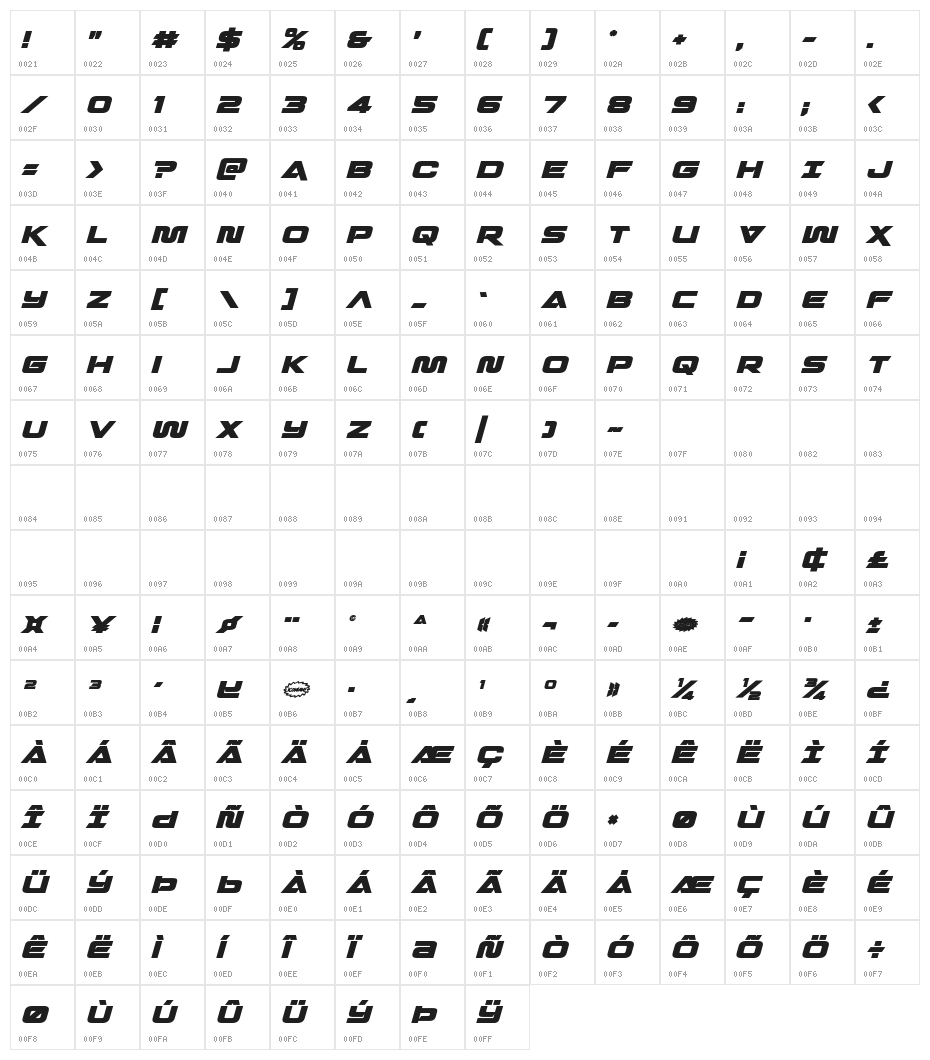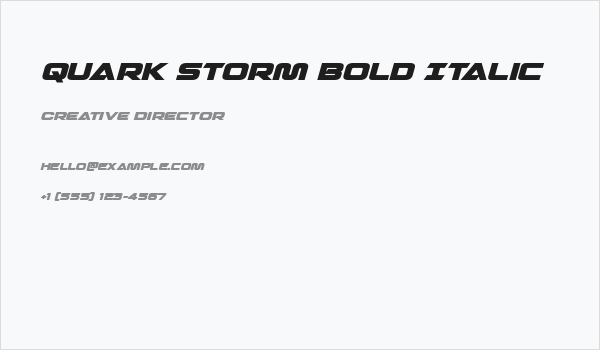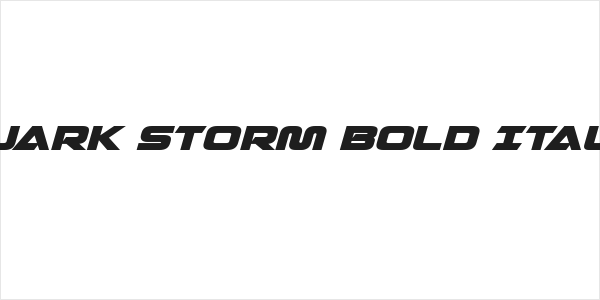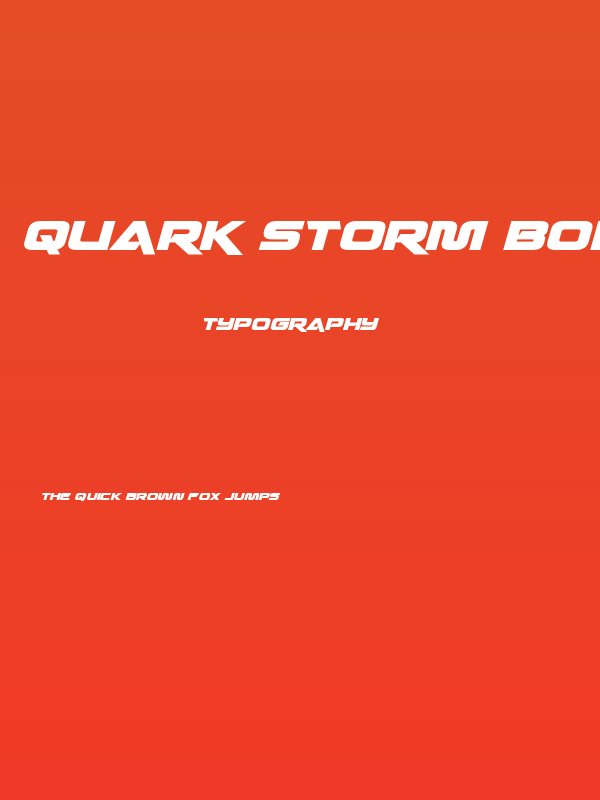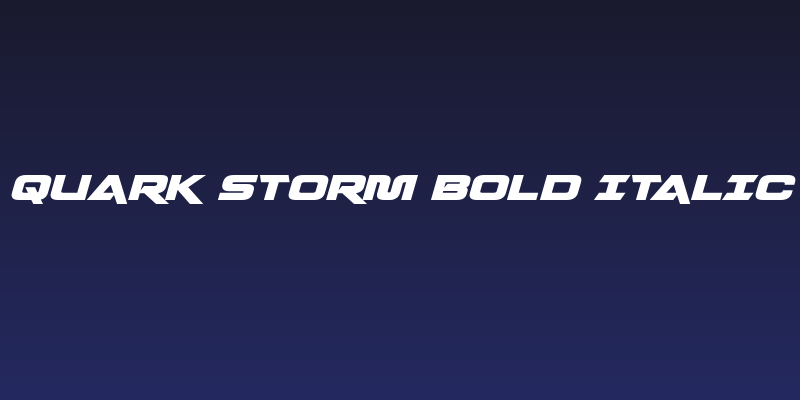
Quark Storm Bold Italic Font
Quark Storm Bold Italic Description
This font exhibits a bold and italicized style with a futuristic and dynamic appearance. The characters are angular and slanted, giving a sense of motion and speed. The strokes are thick and consistent, contributing to a strong visual impact. The uppercase and lowercase letters maintain a uniform style, with sharp edges and a slightly condensed form. Numbers and special characters follow the same design principles, ensuring cohesion across all elements. This font is ideal for projects that require a modern and energetic look.
| Proposed Projects | Ideal for sports branding, technology-themed designs, video game titles, and dynamic posters. |